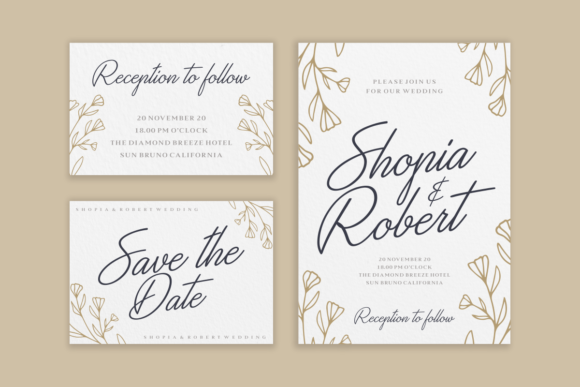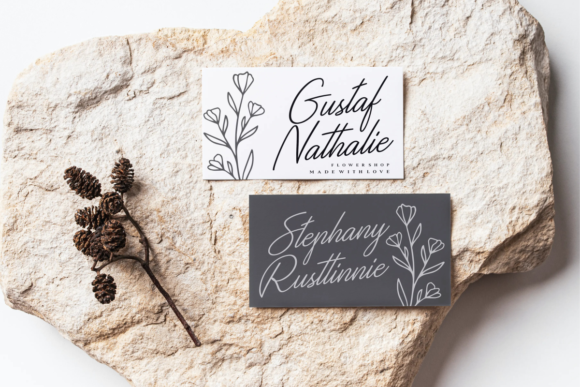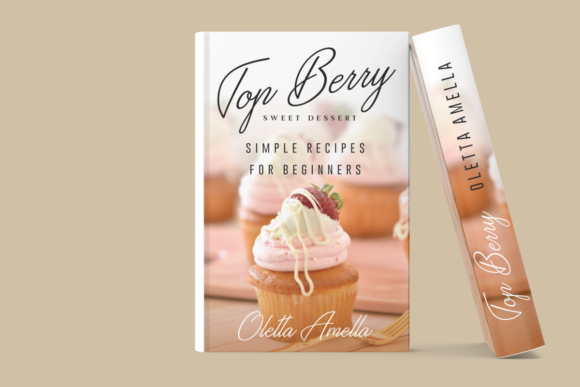
Introduction to Jillate Font
Jillate is a delicate handwritten font, featuring well balanced characters.
It looks stunning on wedding invitations, thank you cards, quotes, greeting cards, logos, business cards and every other design which needs an elegant touch .